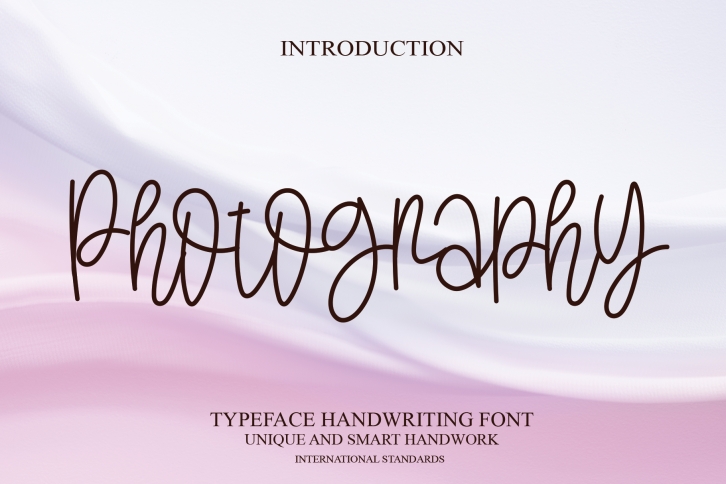
Photography is a simple, quirky and adaptable handwritten font. Its informal style and casual vibe will make this font a go-to choice for each of the creations that require a relaxed touch.